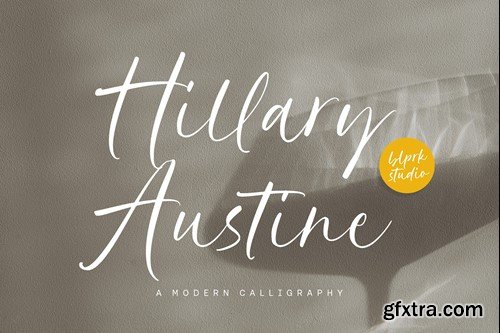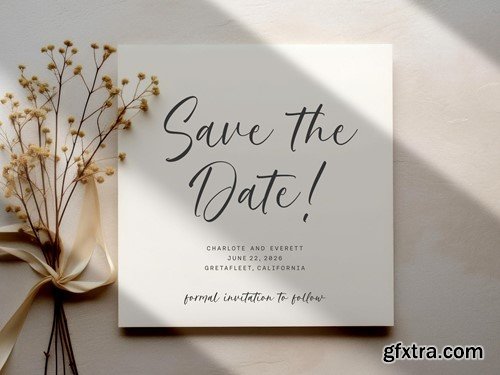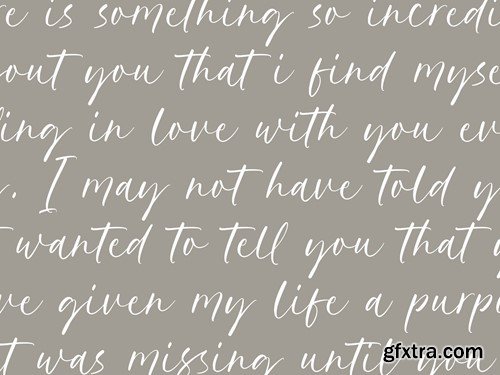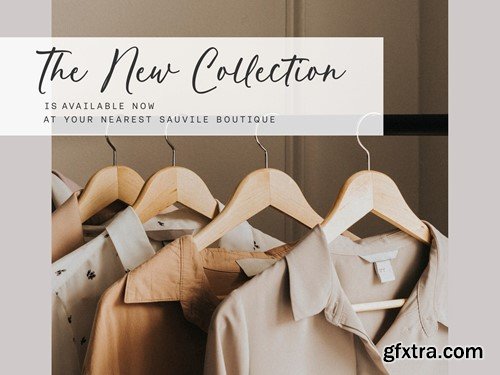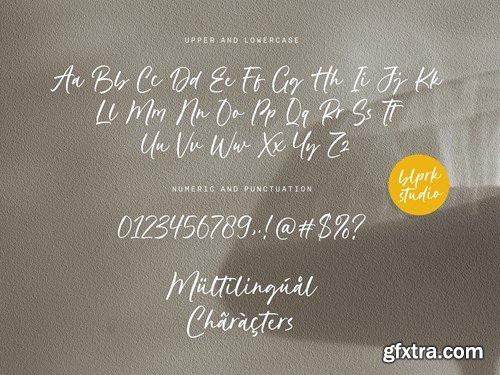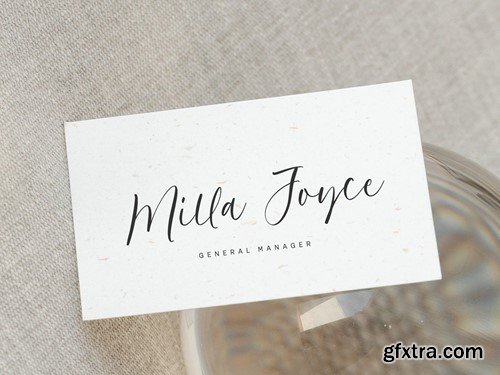
Hillary Austine Script Font RPD9QBA
Hillary Austine Script Font
Introducing by Balpirick Studio. Hillary Austine is a Modern Calligraphy Font that's perfect for adding a personal touch to your design projects! With its natural, organic feel and unique character. Crafted with care and attention to detail, this font is incredibly versatile and can be used for a range of design projects, including logos, branding, invitations, and more. Its modern, handwritten style gives it a unique character that's sure to make an impact. This font includes Enjoy the font! Feel free to comment or feedback! Thank you!